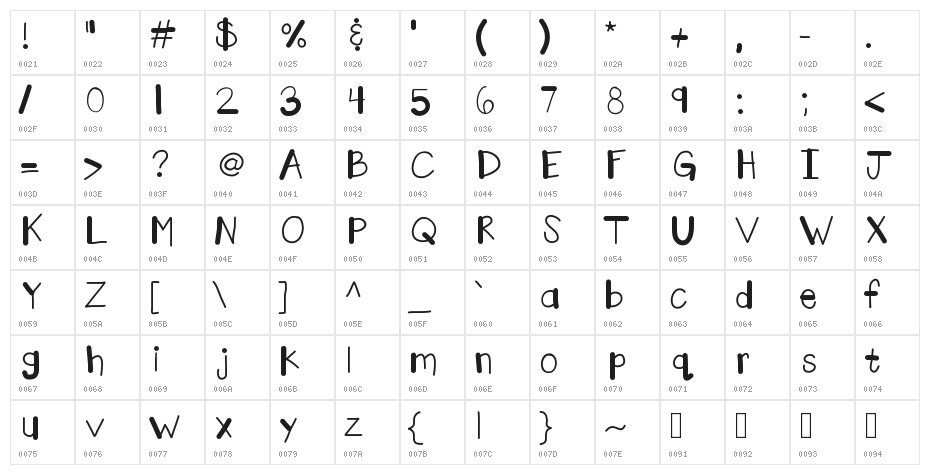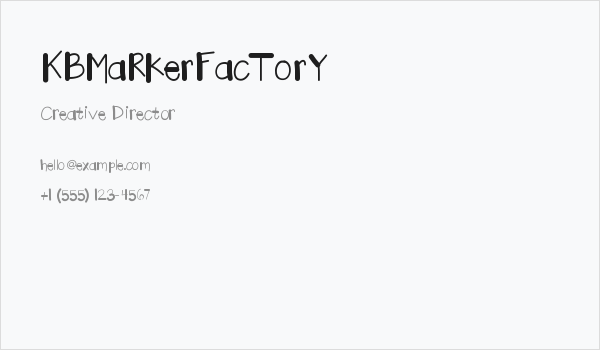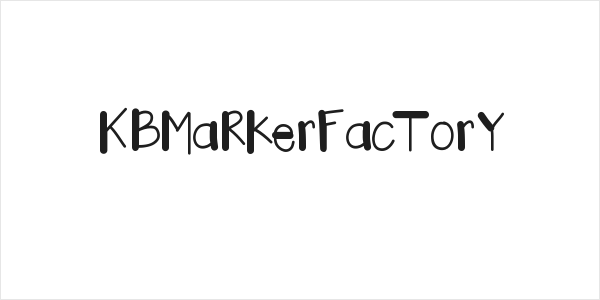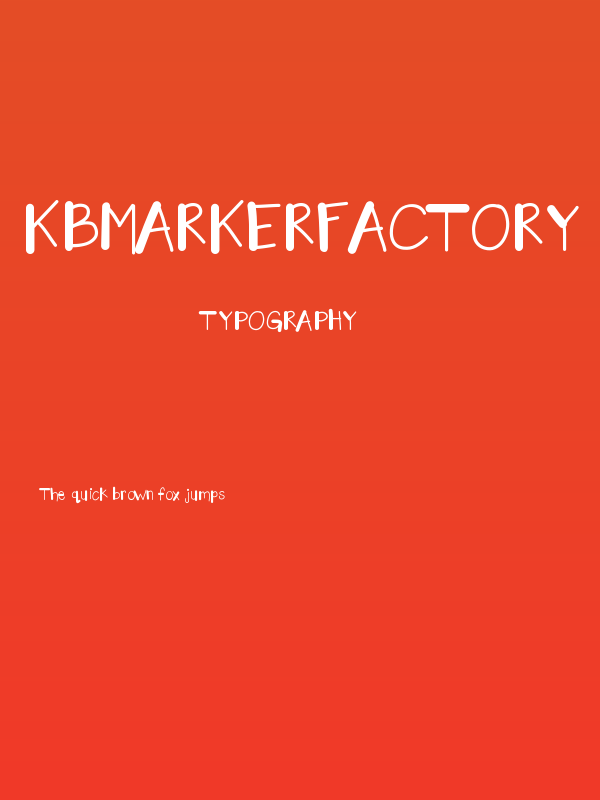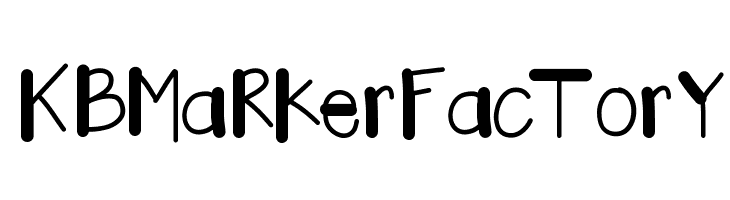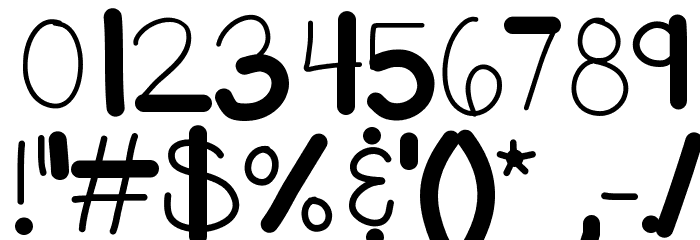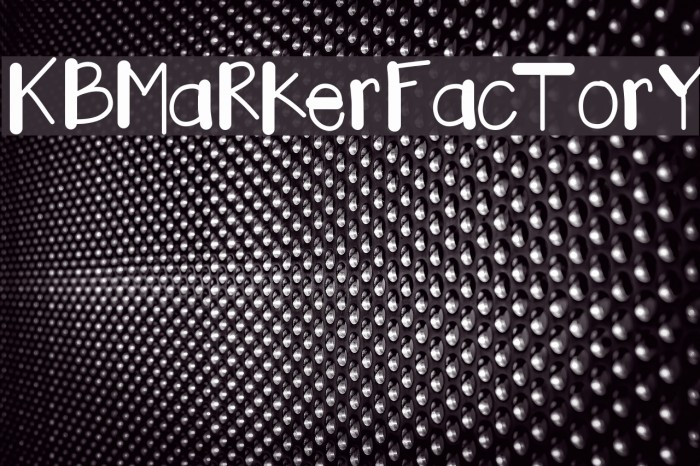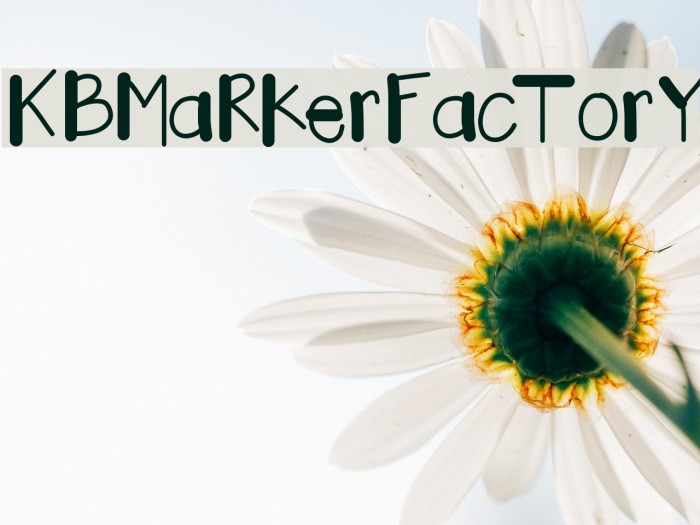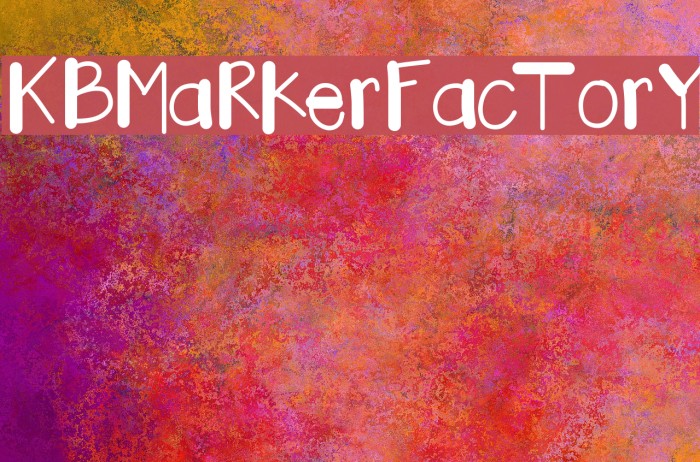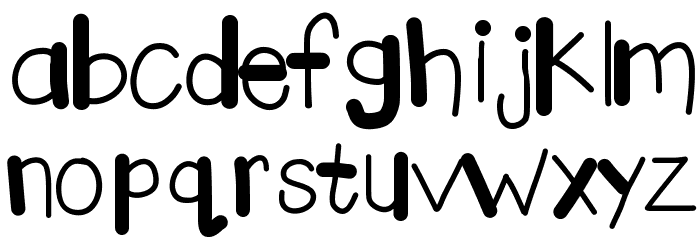
KBMaRkerFacTorY Font
This playful and bold font features a handwritten style with a casual and friendly appearance. The uppercase letters are slightly irregular, adding a whimsical touch, while the lowercase letters maintain a consistent flow. The numbers are rounded and easy to read, complementing the overall informal style. Special characters are creatively designed, enhancing the font's unique personality. The font's thick strokes and rounded edges make it highly legible and suitable for various creative projects.